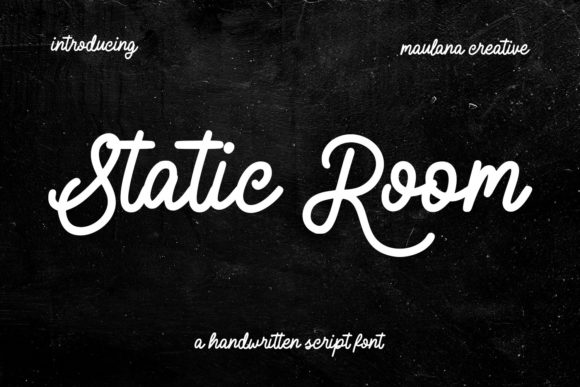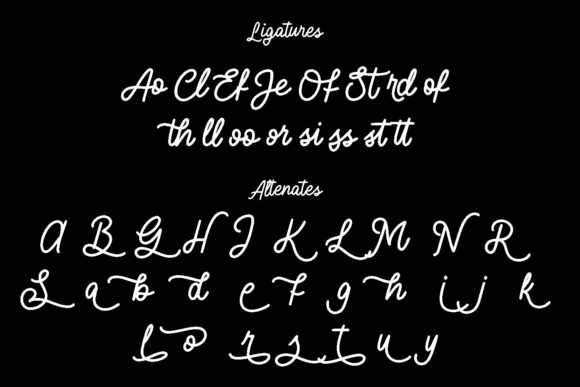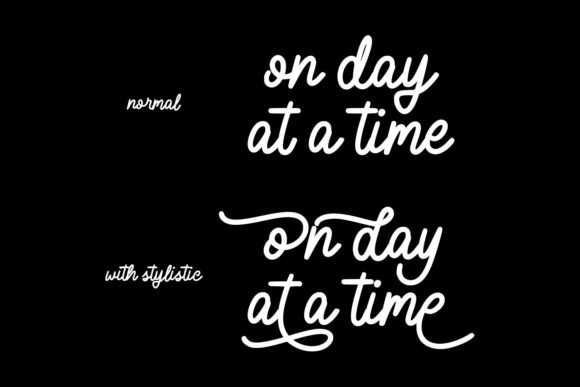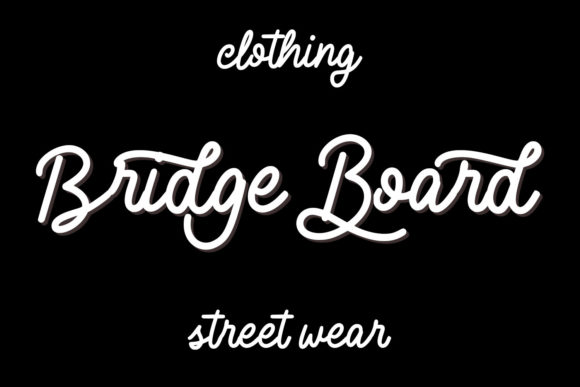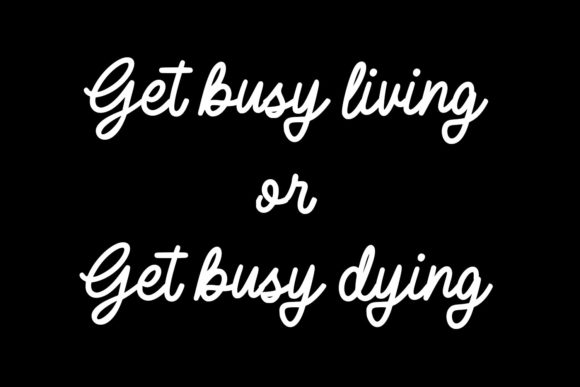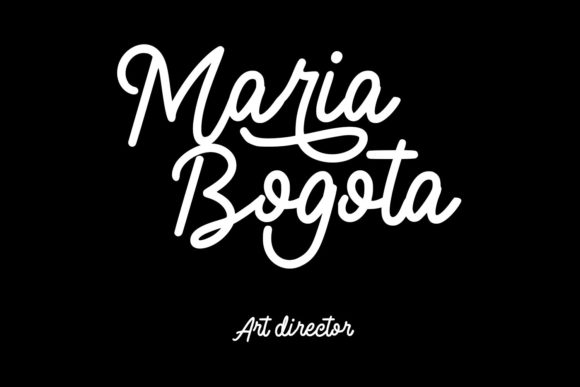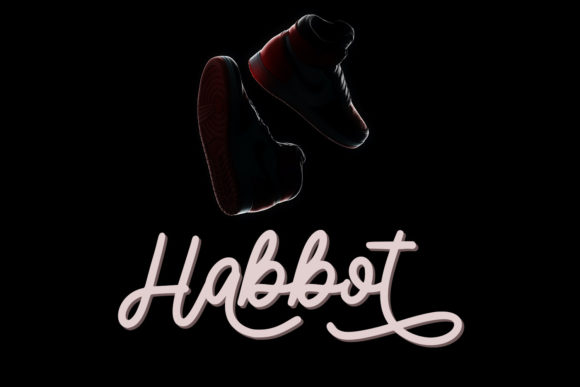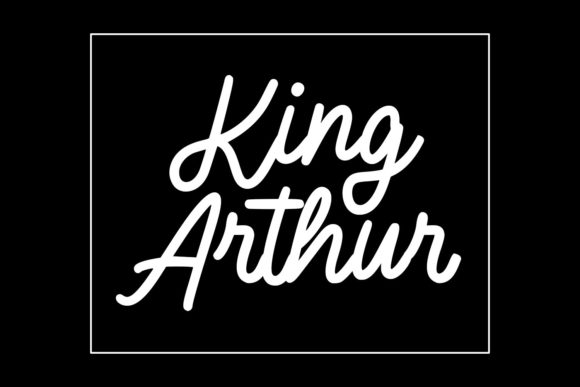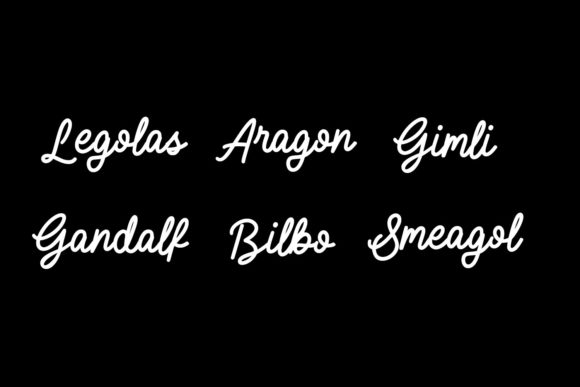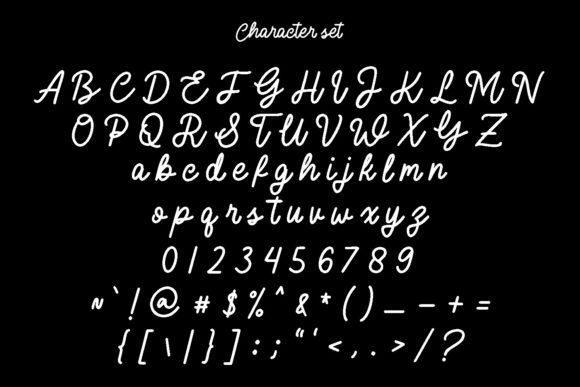
Static Room Font
About Static Room Font
“Static Room” is described as a delicate and vintage script font, tailored for diverse branding projects, including logos, t-shirt printing, and creative products. The font is anticipated to have an extraordinary appearance across various contexts, indicating its versatility and ability to enhance different design scenarios.
The combination of “delicate” and “vintage” suggests a typeface with a refined and subtle charm, reminiscent of a classic or timeless aesthetic. This quality makes it suitable for projects that require a touch of elegance with a nod to the past, aligning well with vintage-inspired design themes.
The mention of PUA encoding is a noteworthy feature. PUA (Private Use Area) encoding allows users to easily access all the glyphs and swashes associated with the font. This capability enhances the font’s flexibility, enabling designers to customize and personalize their projects effortlessly.
The font’s applicability to logos implies that it carries a distinct and memorable quality, contributing to the visual identity of a brand. Its suitability for t-shirt printing and creative products further underscores its versatility, making it adaptable to various design needs.
For designers seeking a delicate and vintage script font with the added benefit of PUA encoding, “Static Room” appears to offer a valuable resource. Its capacity to shine in diverse contexts provides creative professionals with the freedom to explore its aesthetic appeal in branding, apparel design, and other creative projects.